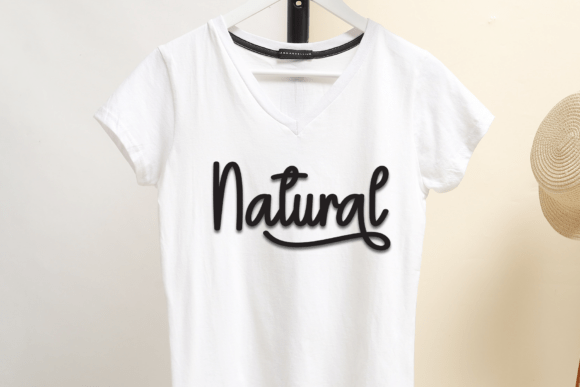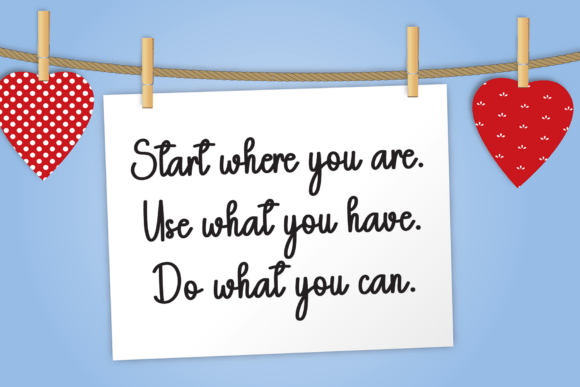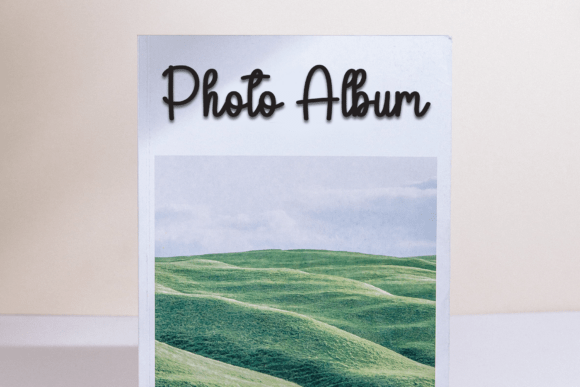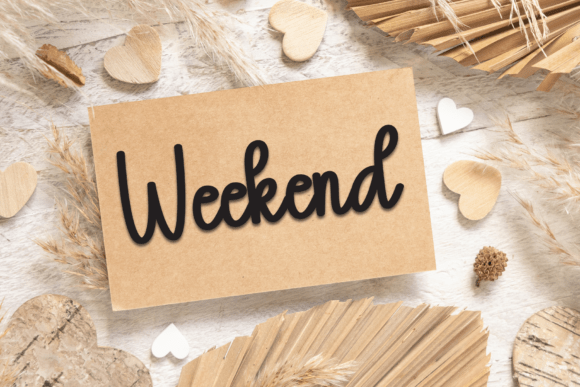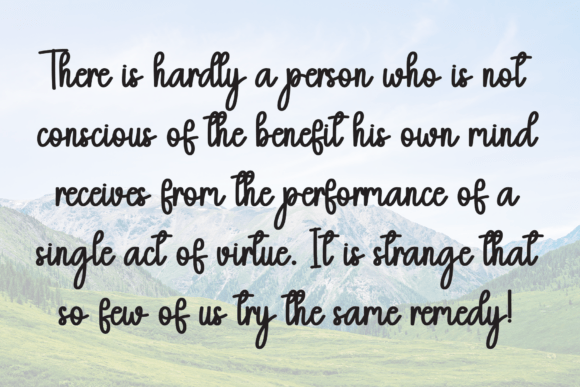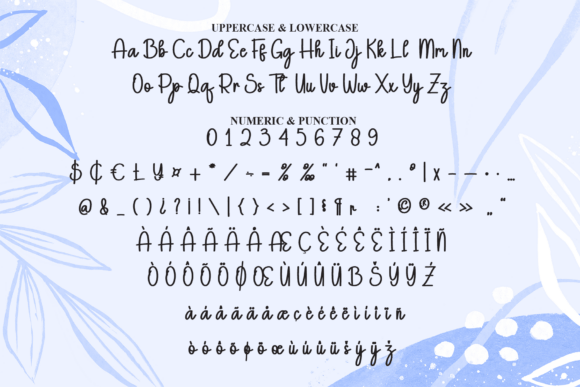
The Designer’s Delight: Absolute Font
Have you ever been in the middle of a design project, and suddenly, you’re stuck on finding the perfect font? I recall a recent experience where a client asked for a logo that exuded elegance and playfulness. After scouring through numerous fonts, I stumbled upon Absolute – a stylish handwritten script font that instantly captured the essence of what I was looking for. In this article, we’ll dive into the world of Absolute Font, exploring its features, uses, and what makes it a fantastic addition to any design project.
A Personal Review: What I Love About Absolute Font
Absolute Font has quickly become a favorite in my design toolkit, and here’s why:
- ✨ Modern elegance with a playful touch: Absolute Font strikes the perfect balance between sophistication and whimsy, making it versatile for various design projects.
- ✅ Fluid strokes and charming curves: The font’s smooth, flowing lines add a personal feel to any design, making it perfect for projects that require a human touch.
- 💫 Warmth and sophistication: Absolute Font brings a sense of luxury and approachability to designs, making it ideal for logos, packaging, and invitations.
While Absolute Font is an excellent choice, there are a few minor quirks to consider:
- 🤔 Limited use in body text: Due to its script nature, Absolute Font might not be the best choice for lengthy body text. It’s better suited for headings, titles, or short paragraphs.
- ⚠️ Some characters may require manual kerning: As with any font, some characters might need manual kerning to achieve optimal spacing and readability.
The Story Behind Absolute Font
Absolute Font was designed with the intention of creating a typeface that blends modern elegance with a playful touch. The designer aimed to craft a font that would bring a personal feel to any design, making it perfect for creative projects. Although the designer’s background is fictional, their inspiration was drawn from the world of handwriting and calligraphy.
| What is Absolute Font best suited for? | Absolute Font is ideal for logos, packaging, invitations, and other design projects that require a personal touch. |
| Can I use Absolute Font for body text? | While possible, Absolute Font is better suited for headings, titles, or short paragraphs due to its script nature. |
| Does Absolute Font support OpenType features? | Yes, Absolute Font supports OpenType features, such as stylistic alternates, glyphs, and ligatures. |